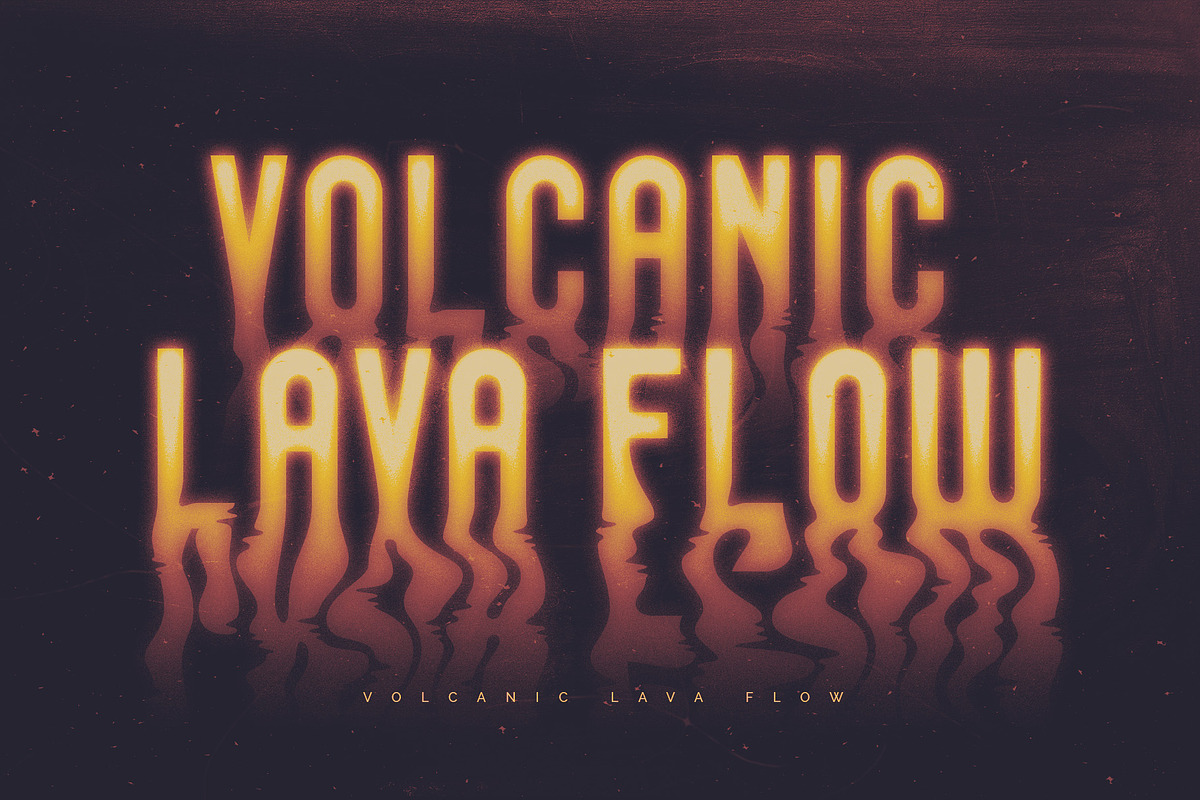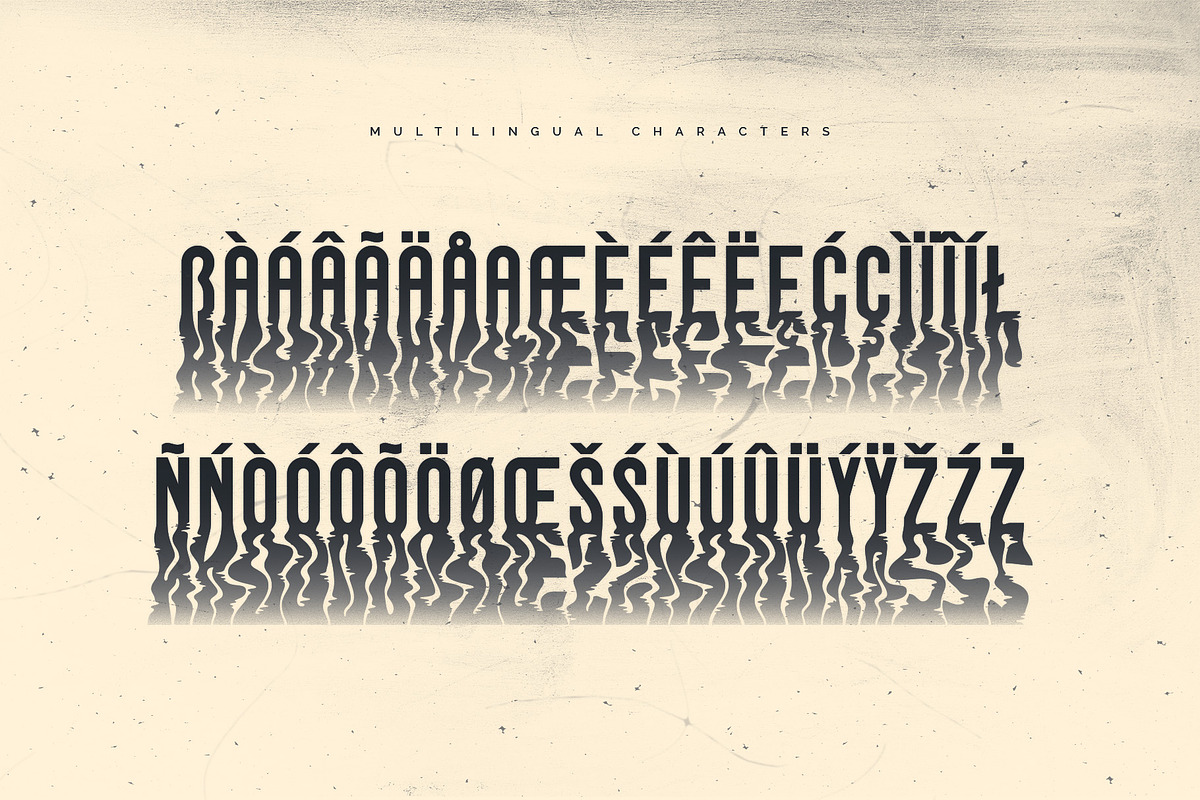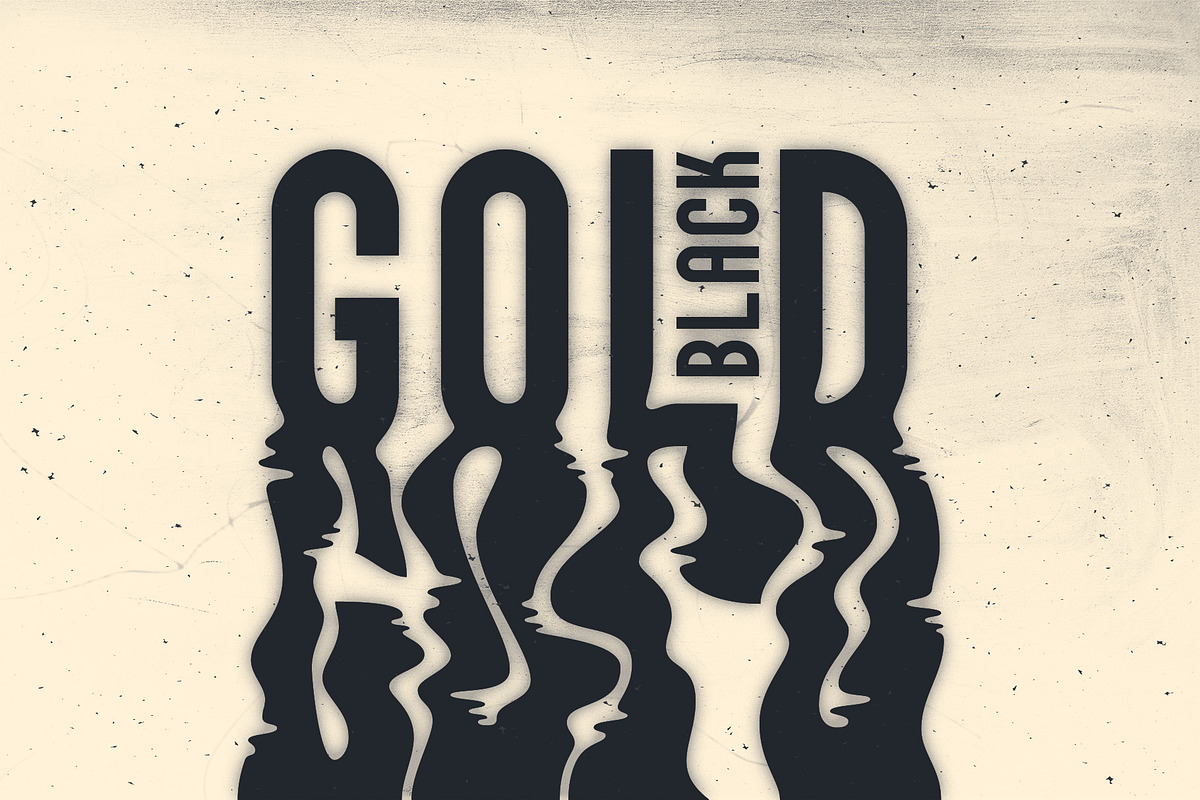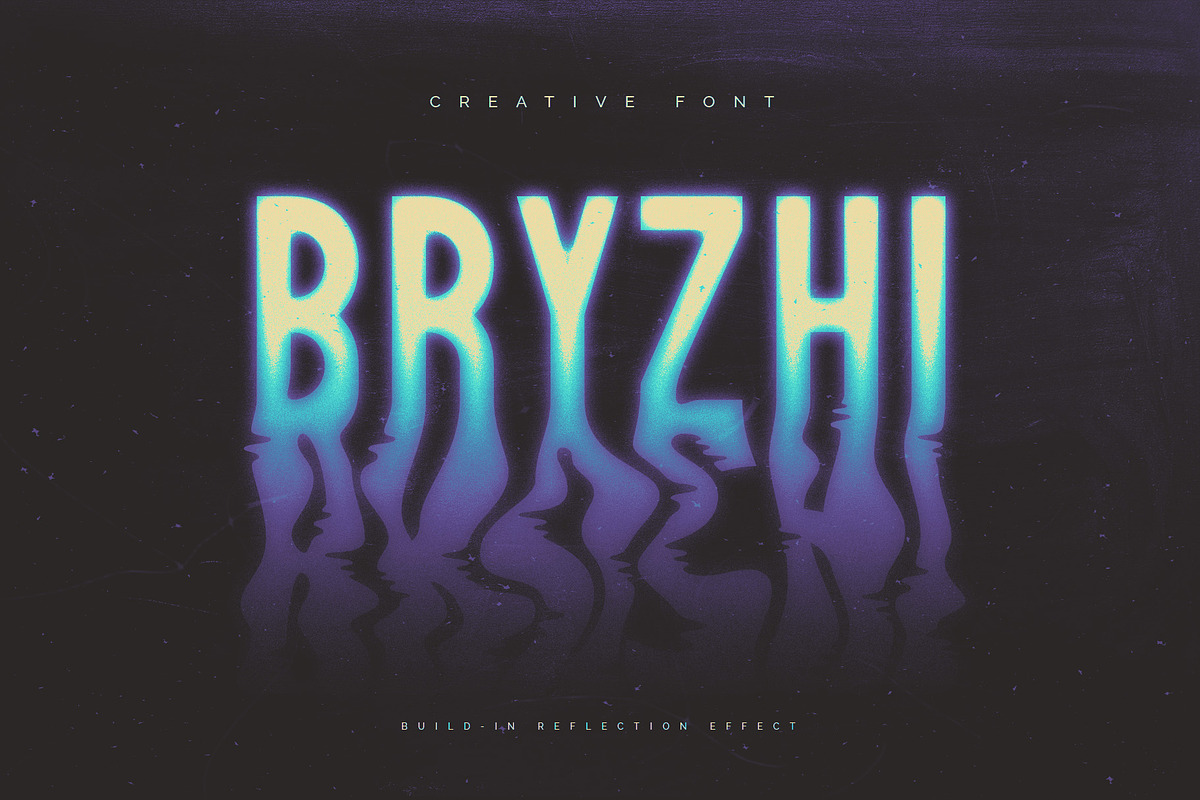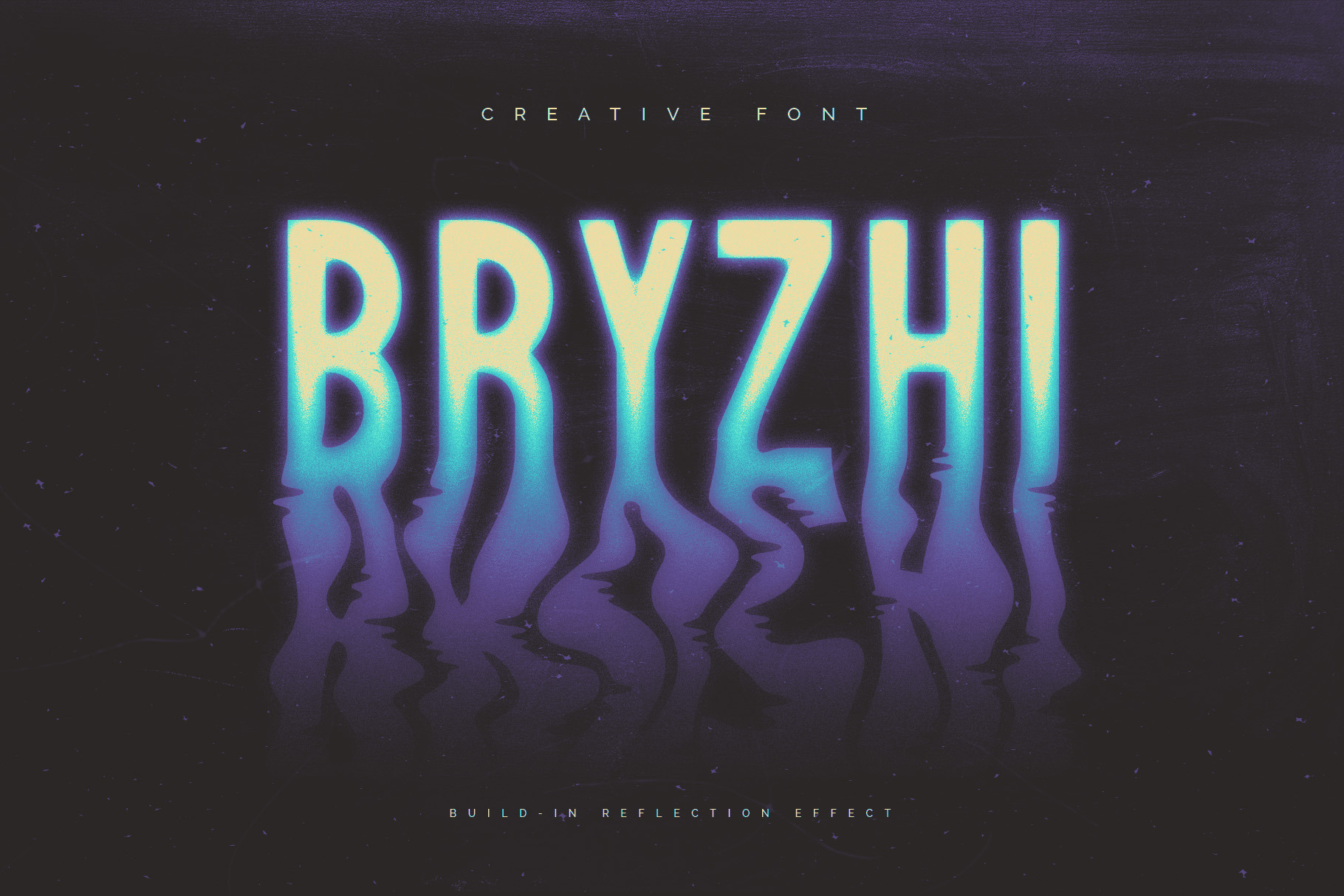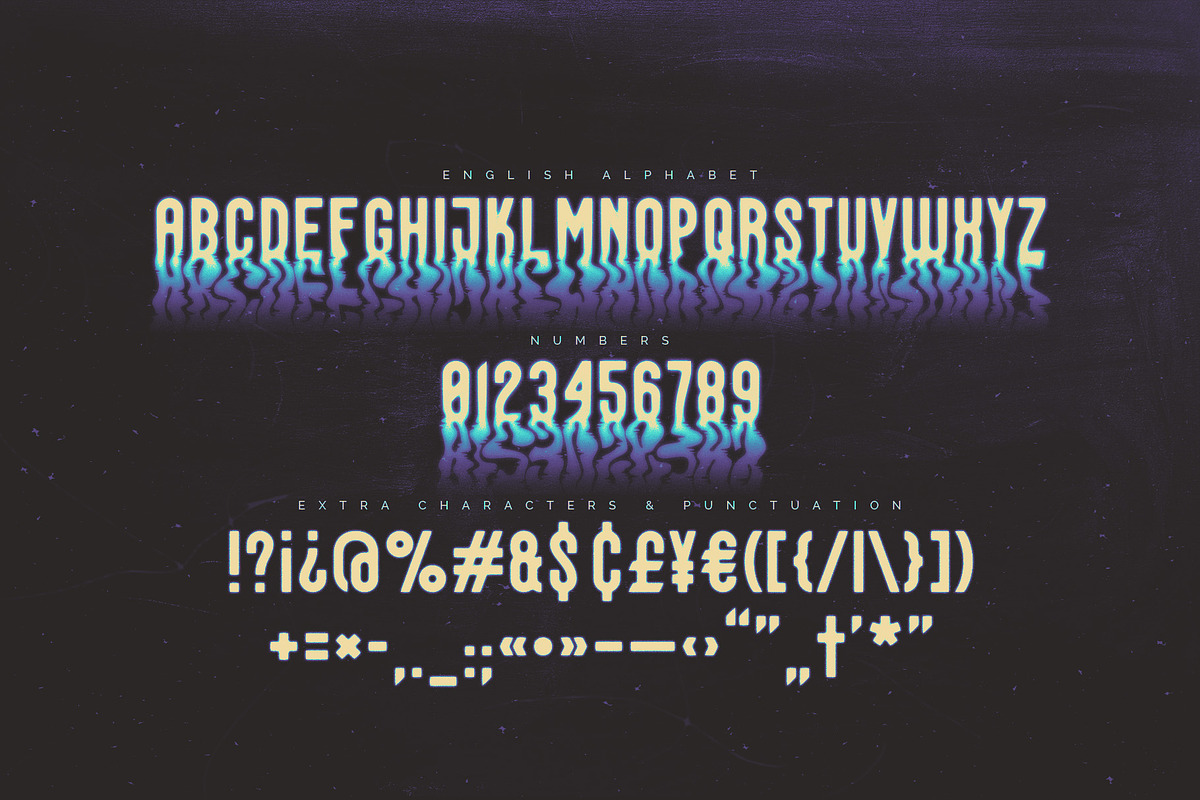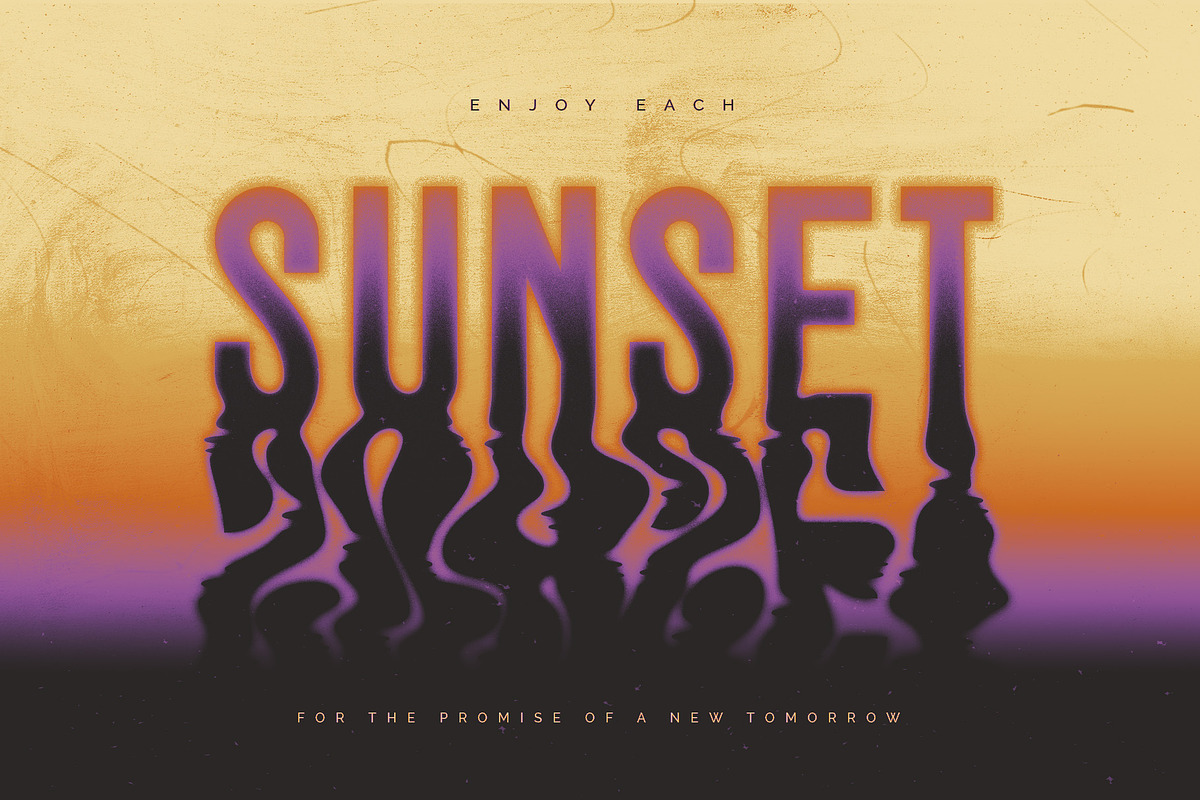
Bryzhi - Creative Font
Hello! Presenting an originally designed, decorative font, named Bryzhi. The main goal of this font is a flowing liquid reflection of characters. Most of the letters have five variations that switch automatically to create a seamless effect. Check out that the "Context Alternates" OpenType feature is activated to achieve the nesessery result. Also simple letters without reflection effect are available using the "Stylistic Alternates" feature. Bryzhi font supports most of the European languages, please check out all the available characters on the screenshots.